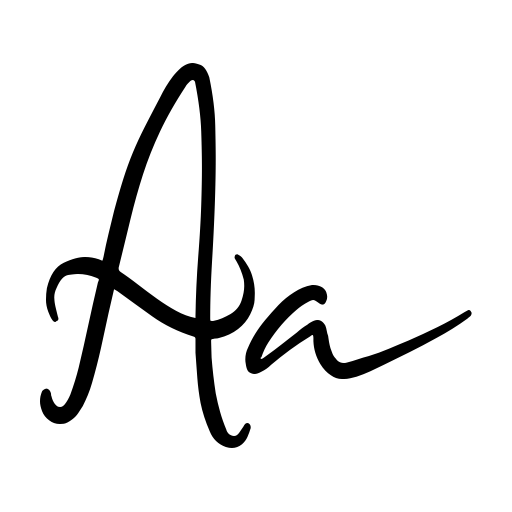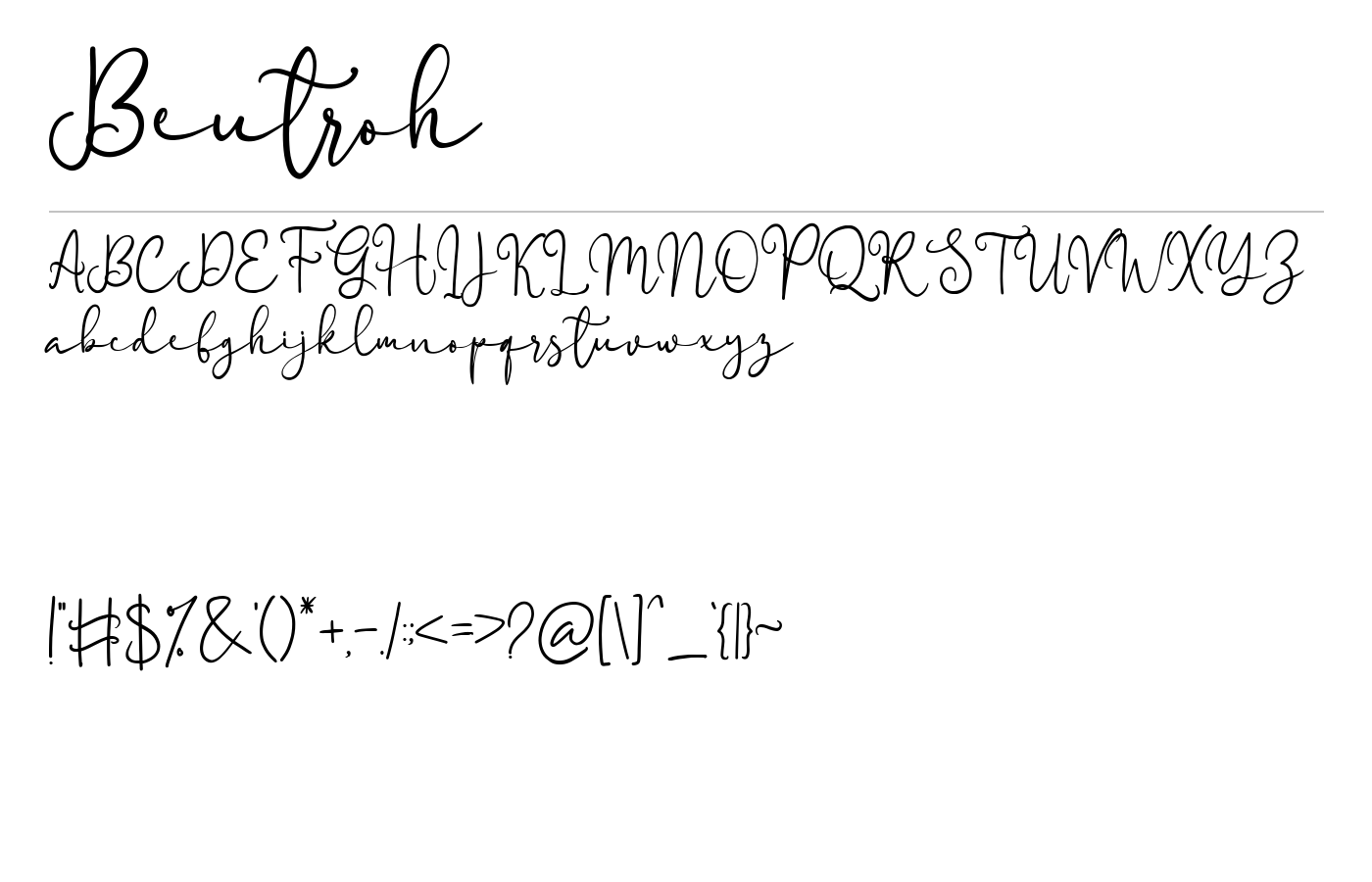
Beutroh is a delicate, handwritten script font with an elegant, flowing style that offers a light and airy feel. Its fine, curved strokes and tall, narrow letterforms create a refined and personal touch, making it ideal for invitations, branding, and creative projects that seek a charming and sophisticated look. This font works wonderfully where a graceful, informal elegance is desired.
Beutroh Font